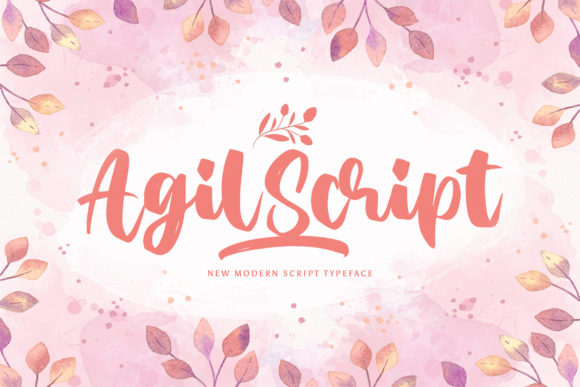
The Agil Script Font: A Charming Addition to Your Creative Projects
I’ll never forget the time I was working on a branding project for a children’s play area. I had the logo design all sorted out, but I was struggling to find the perfect font to complement it. The client wanted something playful, yet elegant. That’s when I stumbled upon Agil Script, and it was love at first sight! 💕
Agil Script is a lovely script font featuring charming, playful characters that seem to dance along the baseline. Add this font to your most creative ideas, and notice how it makes them stand out!
An Honest Review of Agil Script
- ✨ Charming and playful character designs that add a touch of whimsy to any project
- ✅ Elegant and sophisticated feel that’s perfect for branding, invitations, and more
- 🔥 Highly legible, even at smaller font sizes
- 🌈 Beautifully crafted to work well in a variety of color schemes and design styles
While Agil Script is an amazing font, there are a few things to keep in mind:
- 🤔 Some characters, like the lowercase “g” and “y”, have a slightly different design that might take some getting used to
- ⚠️ The font may not be suitable for very long blocks of text, as it’s designed primarily for display purposes
One of the best things about Agil Script is its OpenType features and glyphs. These allow you to customize your text with:
- Ligatures: Combine certain letter combinations for a more elegant look
- Stylistic alternates: Swap out characters for alternative designs
- Glyphs: Access special characters, like ornaments or swashes
Experimenting with these features can help you create truly unique designs that showcase the Agil Script font.
The Backstory of Agil Script
Agil Script was designed with the intention of creating a font that would bring a sense of joy and playfulness to designs. The designer wanted to craft a font that would be both elegant and approachable, with characters that seemed to dance across the page.
With its charming character designs and highly legible letterforms, Agil Script has become a favorite among designers and crafters alike.
Q: What type of projects is Agil Script best suited for?
A: Agil Script is perfect for a wide range of projects, including branding, invitations, party decorations, and more. Its playful yet elegant design makes it suitable for both digital and print designs.
Q: Is Agil Script available in different font weights?
A: Currently, Agil Script is available in a single font weight. However, you can experiment with different font sizes, colors, and styles to achieve the desired effect.